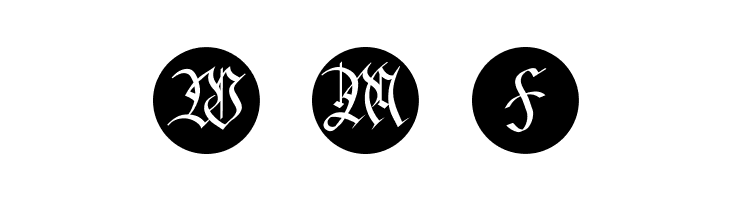
• MonAmourCapsAprilFraktur
An ornate blackletter font with characters encased in circular borders.
• MonAmourFraktur-Broken
An ornate blackletter font with a medieval and decorative style.
• MonAmourFraktur2
A bold, ornate blackletter font with a medieval aesthetic.